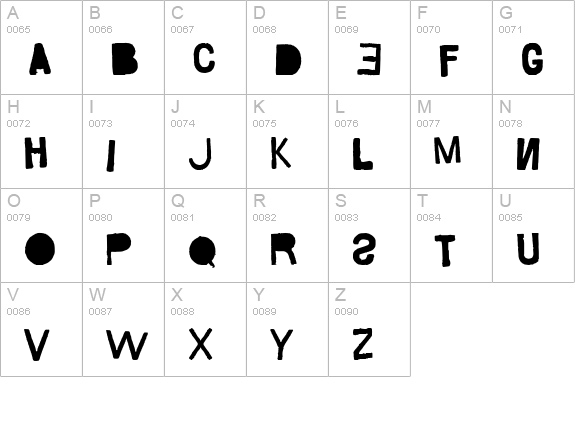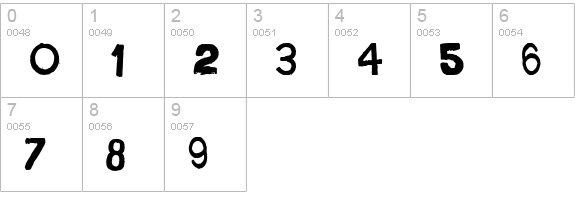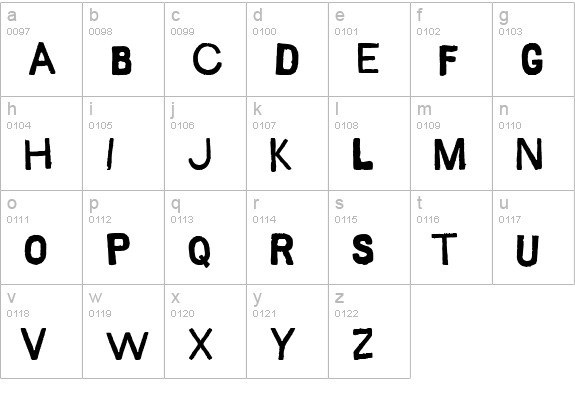
Saco de Pão Font Details
Saco de Pão font is a delightful typeface that exudes warmth and a touch of nostalgia. With its whimsical curves and playful letterforms, this font captures the essence of handwritten charm, making it perfect for a variety of creative projects. This font is freely available to download at FontsMarket.com, offering you the opportunity to bring a touch of personality and character to your designs without breaking the bank. Whether you're designing a logo, creating a poster, or crafting a greeting card, Saco de Pão font adds that extra touch of uniqueness and creativity that will set your work apart. The free availability of Saco de Pão font allows designers, artists, and creatives of all kinds to access a high-quality typeface without any financial constraints. It's a font that encourages experimentation and exploration, giving you the freedom to express your creativity to the fullest. With its wide range of characters and alternate glyphs, Saco de Pão font offers versatility and flexibility. Whether you're going for a vintage-inspired look or a modern and edgy design, this font can adapt to your needs, providing endless possibilities for your creative projects. The beauty of Saco de Pão font lies not only in its visual appeal but also in its ease of use. The clean and legible letterforms ensure that your message is conveyed clearly and effectively, while the subtle irregularities in the strokes add a touch of authenticity and charm. Download Saco de Pão font for free at FontsMarket.com and unlock a world of creativity. Whether you're a professional designer or a hobbyist, this font will become a valuable tool in your creative arsenal. It's time to let your imagination run wild and create something truly extraordinary with Saco de Pão font.